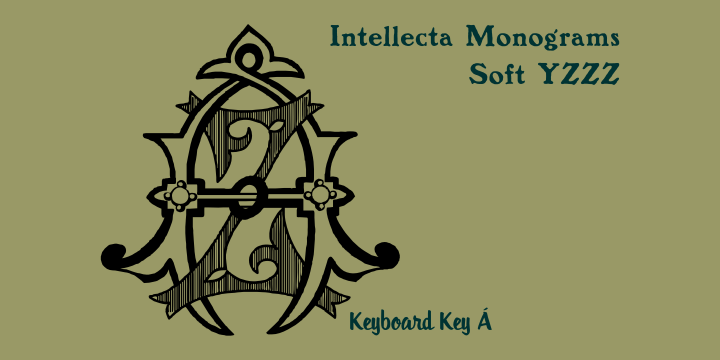
Intellecta Monograms Soft is an extensive collection of ancient intrincate monograms, of all kinds, mainly Victorian style. This new Intellecta’s Monograms series was entirely designed by hand, without use of auto-tracing. Each combination of letters has different interpretations of patterns, textures, colours (Black/Black, White/White, Black/White) embossing, extrusions and much more. More combination of letters will be launched soon.